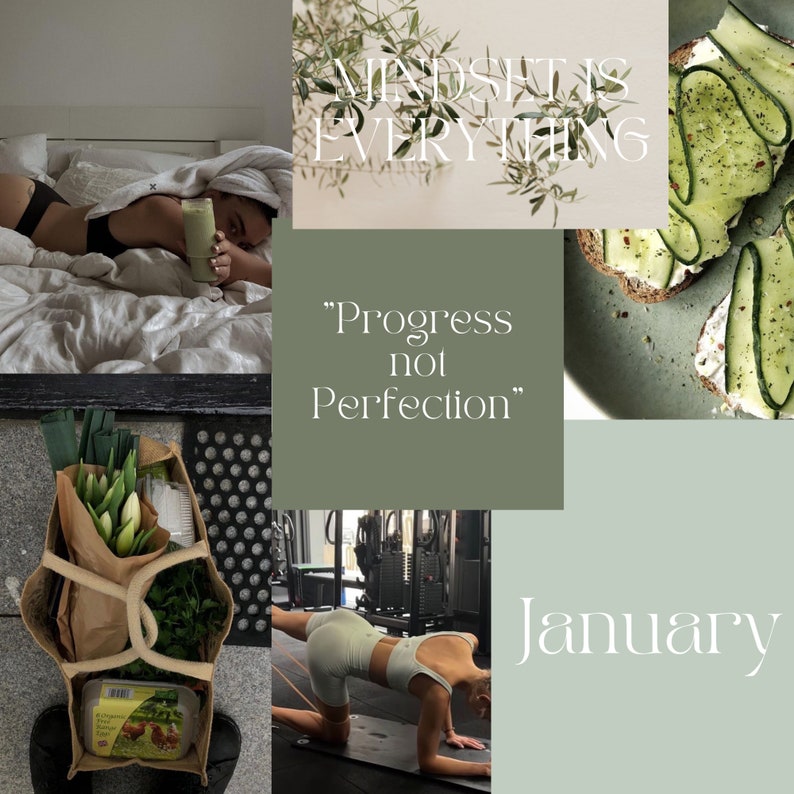
Best Font For Vision Board . Collection of fonts for vision board fonts. Hopefully by the time you’ve started on your vision board, you’ve decided which font (or fonts) you’ll be using. Whether you are choosing your word for the year or planning a vision board party, you’re sure. Unlock the door to creativity with this list of 150 free printable words for your vision board! However, fonts like arial and helvetica are widely recognized for their clarity and legibility,. The best font for readability often depends on the context and medium. Collection of fonts for vision boards. Showing this on your vision board doesn’t mean that you have to show. Collection of fonts for vision board fonts. Collection of fonts for vision boards.
Unlock the door to creativity with this list of 150 free printable words for your vision board! However, fonts like arial and helvetica are widely recognized for their clarity and legibility,. Whether you are choosing your word for the year or planning a vision board party, you’re sure. The best font for readability often depends on the context and medium. Collection of fonts for vision boards. Hopefully by the time you’ve started on your vision board, you’ve decided which font (or fonts) you’ll be using. Collection of fonts for vision board fonts. Showing this on your vision board doesn’t mean that you have to show. Collection of fonts for vision board fonts. Collection of fonts for vision boards.
Best Font For Vision Board The best font for readability often depends on the context and medium. Whether you are choosing your word for the year or planning a vision board party, you’re sure. Showing this on your vision board doesn’t mean that you have to show. The best font for readability often depends on the context and medium. Hopefully by the time you’ve started on your vision board, you’ve decided which font (or fonts) you’ll be using. Collection of fonts for vision board fonts. Collection of fonts for vision board fonts. Collection of fonts for vision boards. However, fonts like arial and helvetica are widely recognized for their clarity and legibility,. Unlock the door to creativity with this list of 150 free printable words for your vision board!
Selecting a Font to Match your Photo Book Vision » BOOK THIS PROJECT. Best Font For Vision Board Collection of fonts for vision board fonts. Hopefully by the time you’ve started on your vision board, you’ve decided which font (or fonts) you’ll be using. The best font for readability often depends on the context and medium. Collection of fonts for vision boards. Collection of fonts for vision board fonts. Collection of fonts for vision boards. Showing this on. Best Font For Vision Board.
Colorful Vision Board Words (Free Printable PDF) The Chic Life Best Font For Vision Board Showing this on your vision board doesn’t mean that you have to show. The best font for readability often depends on the context and medium. Collection of fonts for vision boards. Collection of fonts for vision board fonts. Collection of fonts for vision boards. Whether you are choosing your word for the year or planning a vision board party, you’re. Best Font For Vision Board.
My Vision Board Lettering Best Font For Vision Board Hopefully by the time you’ve started on your vision board, you’ve decided which font (or fonts) you’ll be using. Unlock the door to creativity with this list of 150 free printable words for your vision board! Collection of fonts for vision board fonts. Whether you are choosing your word for the year or planning a vision board party, you’re sure.. Best Font For Vision Board.
Free Printable Inspirational Words for Vision Boards Vision board Best Font For Vision Board Collection of fonts for vision board fonts. Showing this on your vision board doesn’t mean that you have to show. Collection of fonts for vision board fonts. Unlock the door to creativity with this list of 150 free printable words for your vision board! Collection of fonts for vision boards. Hopefully by the time you’ve started on your vision board,. Best Font For Vision Board.
Vision Board Font Best Font For Vision Board The best font for readability often depends on the context and medium. Whether you are choosing your word for the year or planning a vision board party, you’re sure. Showing this on your vision board doesn’t mean that you have to show. Collection of fonts for vision boards. However, fonts like arial and helvetica are widely recognized for their clarity. Best Font For Vision Board.
112 Vision Board Ideas & Examples to Create A Vision Board Unique to Best Font For Vision Board Collection of fonts for vision board fonts. Showing this on your vision board doesn’t mean that you have to show. Hopefully by the time you’ve started on your vision board, you’ve decided which font (or fonts) you’ll be using. However, fonts like arial and helvetica are widely recognized for their clarity and legibility,. Collection of fonts for vision boards. The. Best Font For Vision Board.
Bullet Journal Font, Journal Fonts, Vision Board Examples, Creating A Best Font For Vision Board Hopefully by the time you’ve started on your vision board, you’ve decided which font (or fonts) you’ll be using. Showing this on your vision board doesn’t mean that you have to show. Collection of fonts for vision boards. Collection of fonts for vision board fonts. However, fonts. Best Font For Vision Board.
Vision Board Printables 8 Pages of Free Inspirational Words and Best Font For Vision Board However, fonts like arial and helvetica are widely recognized for their clarity and legibility,. Showing this on your vision board doesn’t mean that you have to show. Collection of fonts for vision boards. Hopefully by the time you’ve started on your vision board, you’ve decided which font (or fonts) you’ll be using. Collection of fonts for vision board fonts. Whether. Best Font For Vision Board.